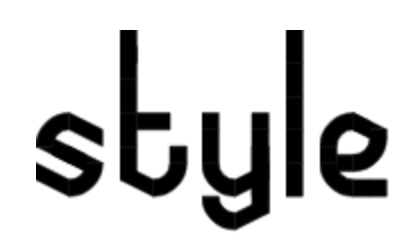
cool
Confident line-work, good shapes and spacing, easy to read, novel. Is this for a project? This could be so useable even without UpperCase. But I vote 6/10, I'll increase value when you've added numbers 0-9 and essential punctuation (on Basic and MoreLatin!) to make it useful for at minimum modern-English text.